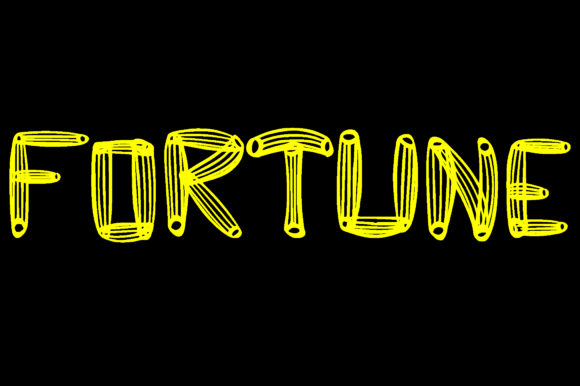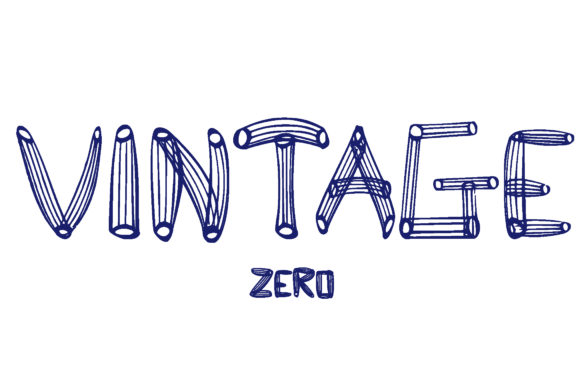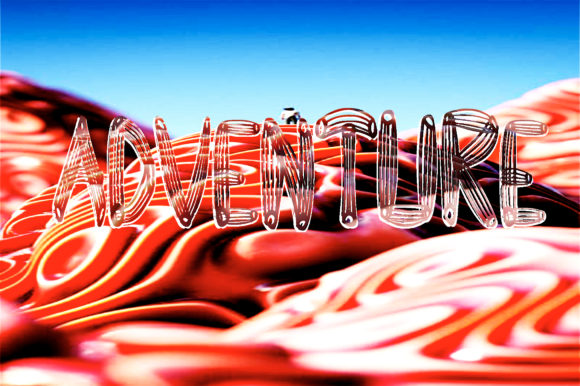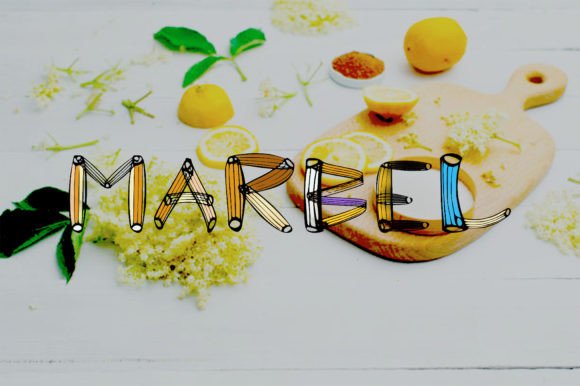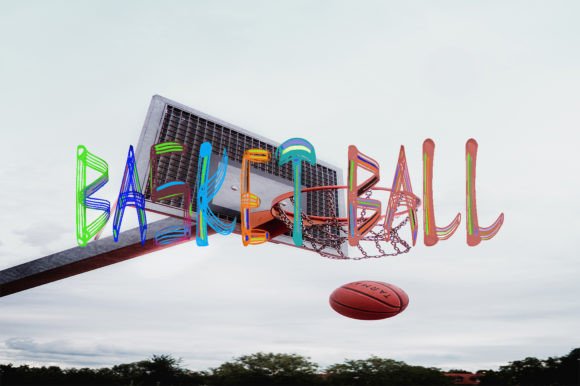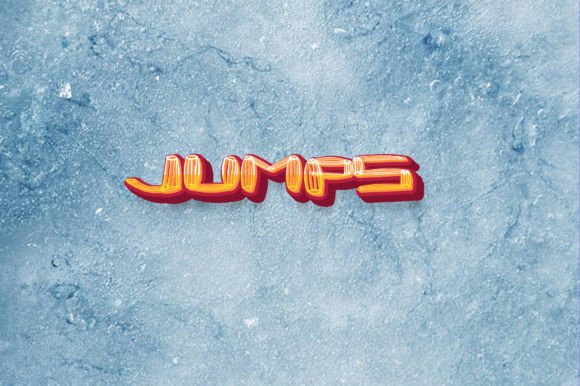
Introducing Football Font: The Ultimate Display Font for Creative Projects
Are you a designer, crafter, or enthusiast looking for a font that can elevate your creative projects? Look no further than Football Font, a cool and adaptable display font that’s perfect for a wide range of applications. In this article, we’ll explore the features and benefits of Football Font, and show you how to make the most of this versatile font.
What is Football Font?
Football Font is a stylish and modern display font that’s designed to make a statement. With its bold and dynamic lettering, this font is perfect for creating eye-catching headlines, titles, and text elements that demand attention. Whether you’re working on a craft project, designing a poster or flyer, or creating print materials, Football Font is the perfect choice.
Key Features of Football Font
- Cool and Adaptable Design: Football Font features a unique and stylish design that’s both cool and adaptable. The font’s bold and dynamic lettering makes it perfect for creating eye-catching text elements.
- Wide Range of Applications: Football Font is perfect for a wide range of creative projects, including crafts, posters, flyers, print materials, and more.
- High-Quality Design: Football Font is designed to high standards, with clean and crisp lines that look great at any size.
Benefits of Using Football Font
So why choose Football Font for your creative projects? Here are just a few benefits of using this versatile font:
- Add a Professional Touch: Football Font is designed to look professional and polished, making it perfect for creating high-quality text elements.
- Stand Out from the Crowd: With its bold and dynamic lettering, Football Font is sure to make your text elements stand out from the crowd.
- Endless Creative Possibilities: Football Font is a versatile font that can be used for a wide range of creative projects, from crafts to print materials.
- Easy to Pair with Other Fonts: Football Font pairs well with a wide range of other fonts, making it easy to create visually appealing text combinations.
Inspirational Ideas for Using Football Font
Here are some inspirational ideas for using Football Font in your creative projects:
- Create a Sports-Themed Poster: Use Football Font to create a bold and eye-catching poster for a sports event or tournament.
- Design a Craft Project: Use Football Font to add a personal touch to your craft projects, such as scrapbooking or card making.
- Make a Flyer: Use Football Font to create a flyer for a sports team, event, or promotion.
- Develop a Brand Identity: Use Football Font to create a bold and recognizable brand identity for your business or organization.
Football Font is a cool and adaptable display font that’s perfect for a wide range of creative projects. With its bold and dynamic lettering, this font is sure to make a statement and add a professional touch to your designs. Whether you’re a designer, crafter, or enthusiast, Football Font is a great choice for anyone looking to elevate their creative projects.
The only limit to using Football Font is your imagination. So why not give it a try and see what amazing creative projects you can come up with?